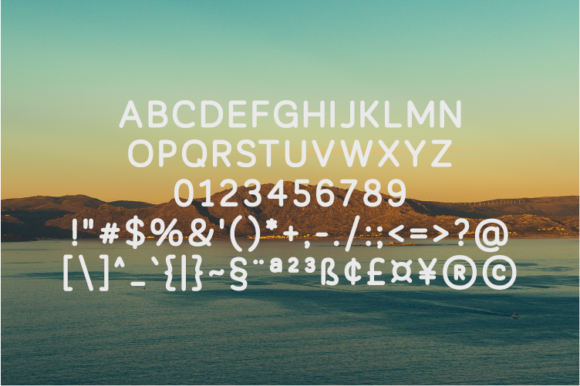
Introduction to Dhilove Font
As a designer, you’ve probably been in this moment before – staring at a blank canvas, trying to find the perfect font to bring your creative project to life. The search can be overwhelming, but what if you stumbled upon a font that effortlessly elevates your design without overpowering it? Enter Dhilove Font, a rounded sans serif font that’s been handcrafted to be the ultimate design companion.
With its casual charm and down-to-earth feel, Dhilove Font is the perfect solution for designers seeking a high-quality, versatile font that can shine in any context. Whether you’re working on a project with a transparent background or a busy design, this font’s readability and adaptability make it an invaluable resource. And the best part? It’s available for free download, making it an accessible addition to any designer’s toolkit.
- Unique, modern design that adds a touch of sophistication and elegance to any creative project or design resource
Honest Review: Dhilove Font
As a designer, I’m always on the lookout for high-quality design resources to elevate my creative projects. The Dhilove Font caught my attention, and I decided to give it a try. Here’s my honest review.
- ✨ Unique design style: The Dhilove Font boasts a distinctive, hand-drawn feel that sets it apart from other fonts.
- ✨ High quality: The font is crisp and clear, making it perfect for digital designs and print materials.
- ⚠️ Limited character set: The font only includes uppercase letters, numbers, and a few special characters, which may limit its use in certain projects.
Overall impression: The Dhilove Font is a solid choice for designers looking for a unique, high-quality font for their creative projects. While it has some limitations, its free download and distinctive design style make it a valuable resource for designers of all levels.
The Dhilove Font is commonly used in creative projects such as graphic design, branding, and digital art. It’s a great resource for designers who want to add a touch of elegance and sophistication to their work. With its high-quality features and transparent background option, the Dhilove Font is a valuable addition to any design toolkit.